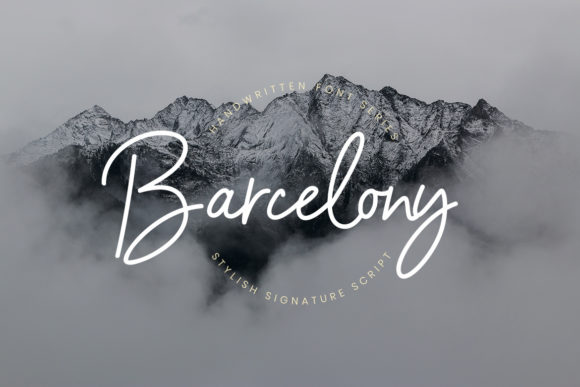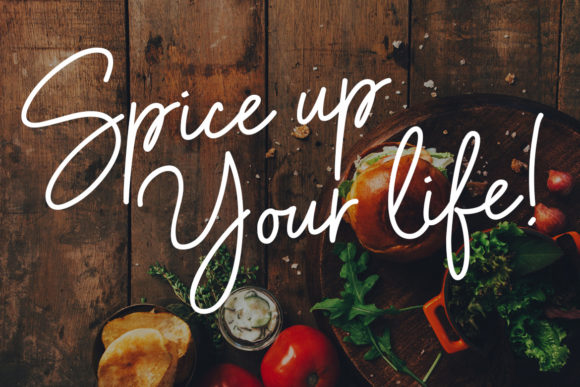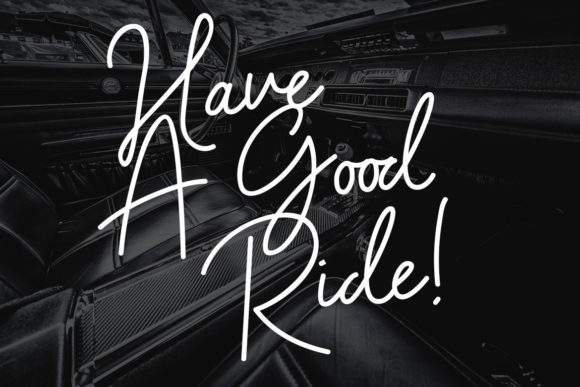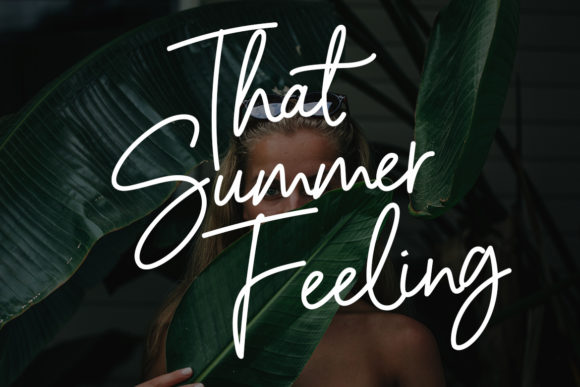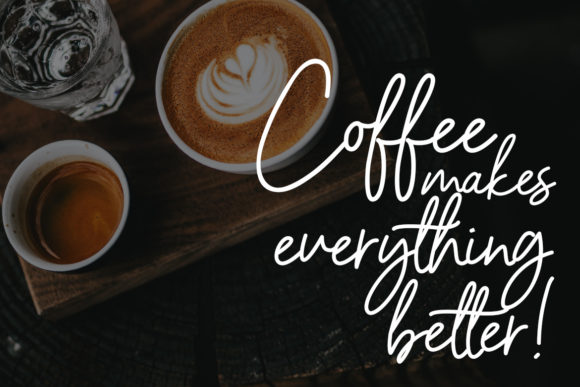
Barcelony Font
About Barcelony Font
The Barcelony is an elegant and smooth signature script. It has a handwritten touch which will give your design a personal feel.
It’s perfect for branding projects, logos, wedding designs, social media posts, advertisements, product packaging, product designs, labels, photography, watermarks, invitations, and much more!